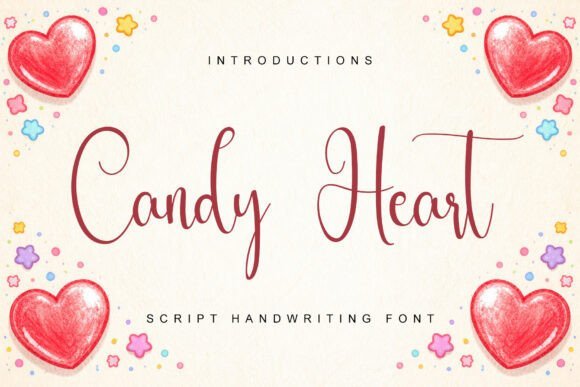
The Sweetest Touch to Your Designs
Have you ever been rummaging through your craft box, searching for the perfect embellishment to make your handmade card stand out? Maybe it’s a sprinkle of glitter, a dash of color, or a sprinkle of love. Whatever it is, you know that it’s the little details that make all the difference. For designers, finding that special something can be a game-changer.
That’s where the Candy Heart Font comes in – a stylish and modern handwritten font that adds a touch of happiness to any creation. Whether it’s a greeting card, a headline, or a brand’s packaging, this font is sure to bring a smile to your audience’s face. With its PUA encoding, accessing all the amazing glyphs and ligatures is a breeze, making it a valuable addition to any designer’s toolkit.
Candy Heart Font Key Features
- Font Family: The Candy Heart Font is a unique, hand-drawn font family with a variety of styles and weights.
- Unique Characteristics: The Candy Heart Font features a distinctive, cursive style with a mix of uppercase and lowercase letters, making it perfect for adding a touch of whimsy to designs.
Candy Heart Font Review
I’ve had the chance to play around with the Candy Heart Font, and I must say it’s a unique and fun addition to any project. ✨ The font’s whimsical design and colorful flair instantly transport me to a world of candy-filled wonder. It’s perfect for creating eye-catching graphics, posters, or even social media graphics that stand out from the crowd.
The Candy Heart Font works well for:
- Creativity-driven projects where you want to add a touch of playfulness and whimsy
- Projects that require a bold, eye-catching font to grab attention
- Designs that need a mix of elegance and fun, like wedding invitations or party decorations
However, there are some limitations to keep in mind: ⚠️
- The font may be too playful for serious or professional projects, which could detract from the message or tone you’re trying to convey
- The font’s complexity may make it difficult to read or use in small text sizes
Overall, I’d give the Candy Heart Font a solid 4 out of 5 stars. It’s a fantastic addition to any designer’s toolkit, but it’s essential to use it judiciously and consider the context of your project. With the right project, this font can add a delightful touch of personality and whimsy that will leave a lasting impression on your audience.
The Candy Heart Font is ideal for:
- Valentine’s Day and wedding invitations.
- Children’s party and birthday invitations.
- Food and dessert branding.
- Quirky and playful marketing materials.
For best results, use the Candy Heart Font in combination with bright colors and playful graphics.